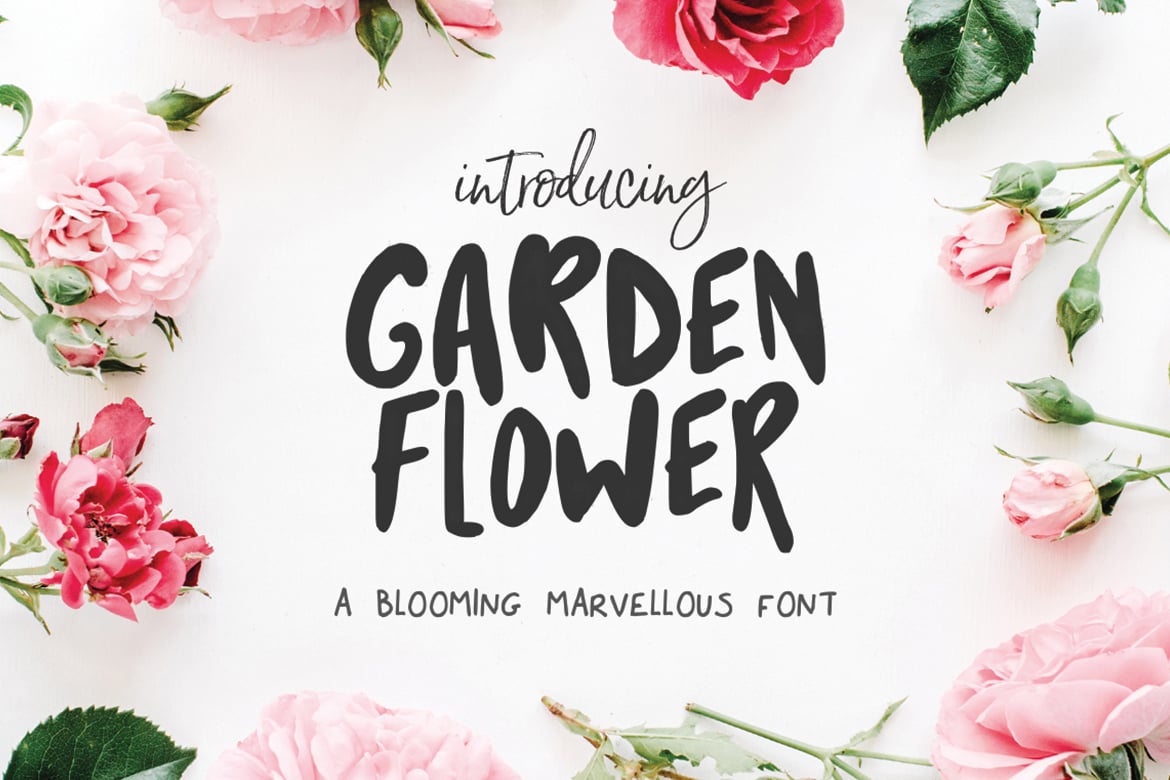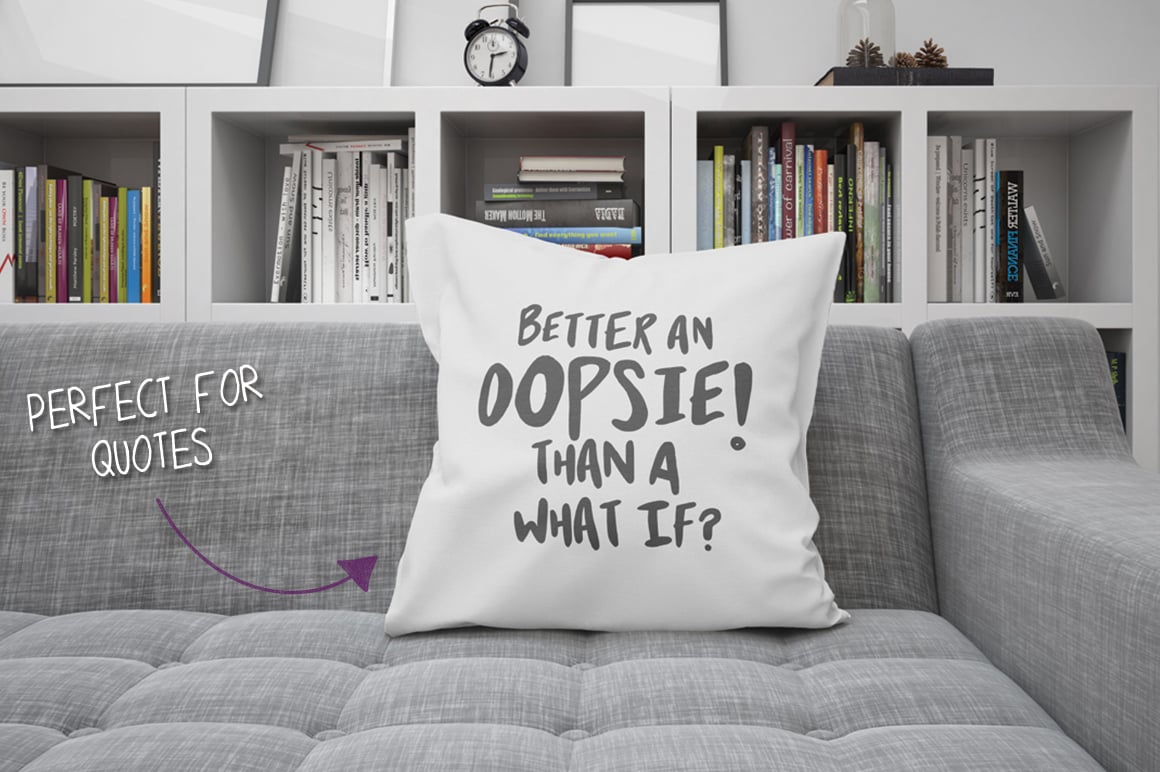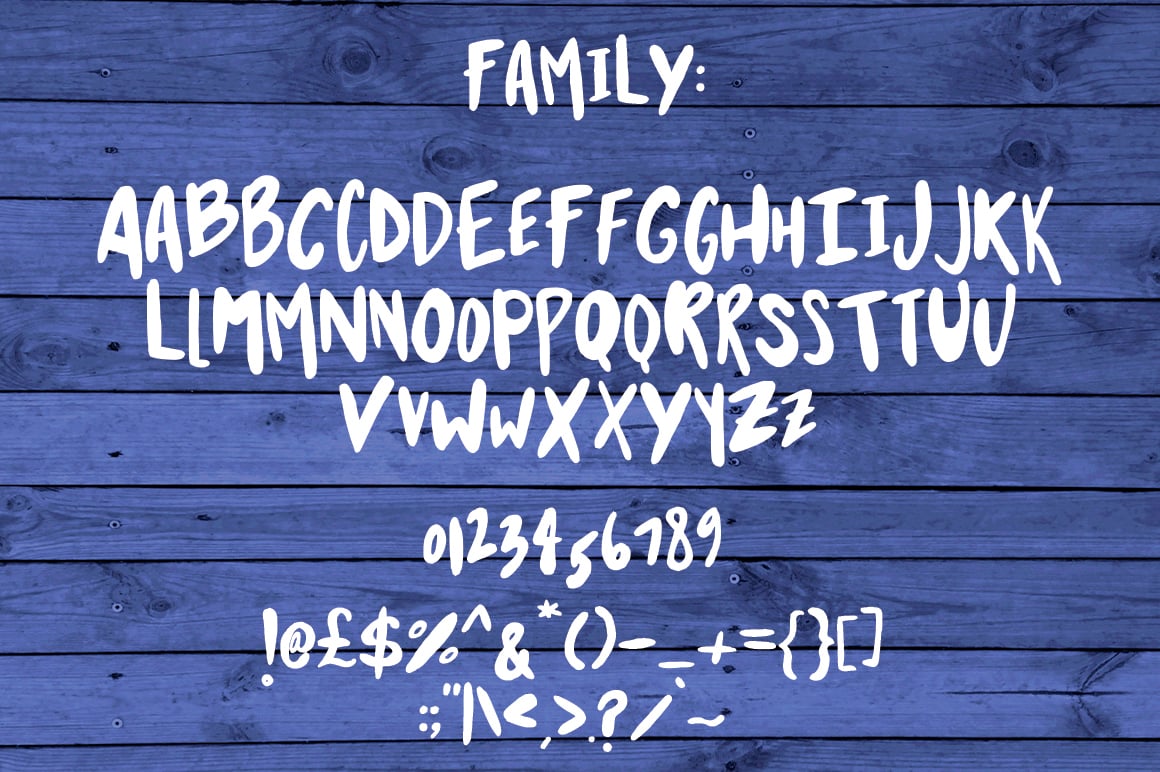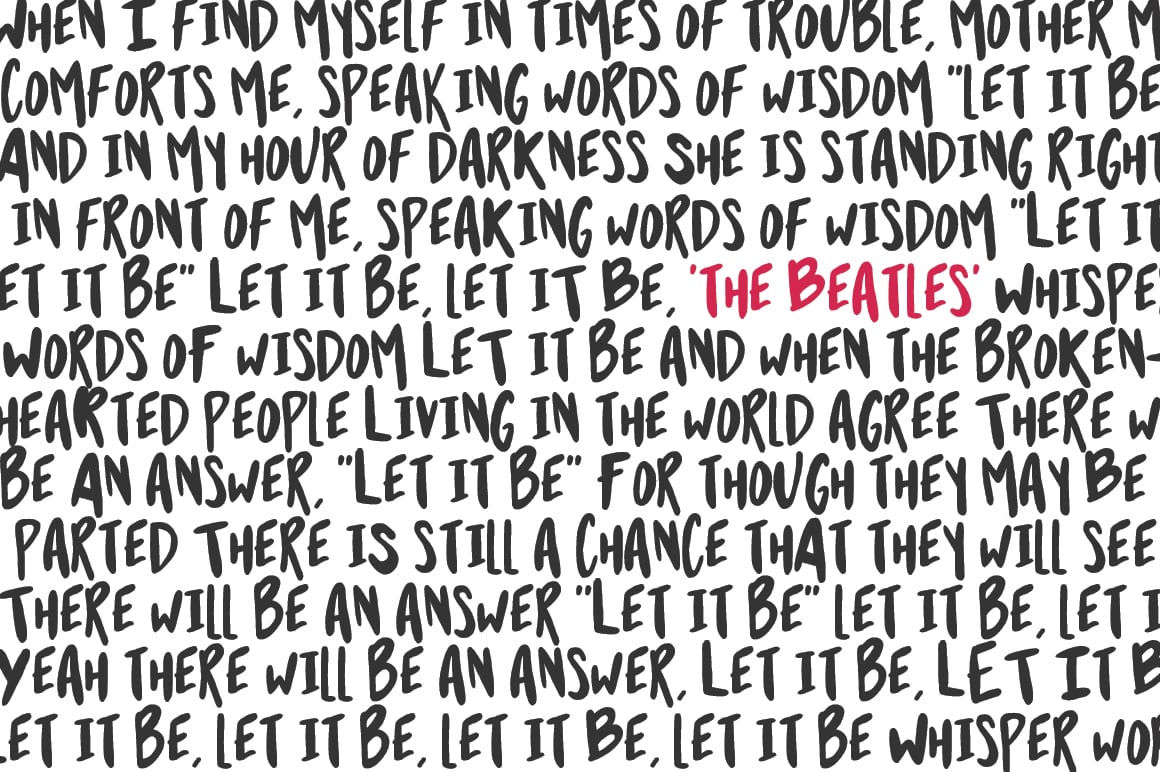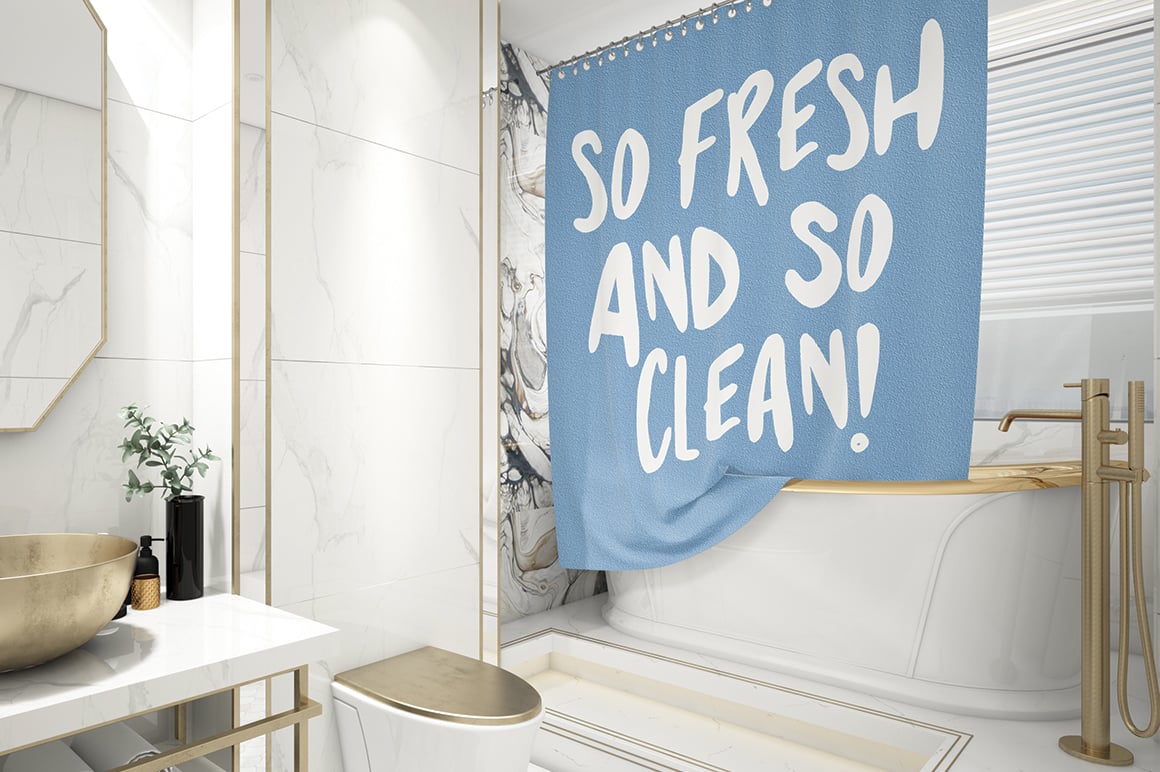
Garden Flower Font
Introducing ‘Garden Flower’ a thick and fabulous new font from Salt & Pepper Designs! Great for bold headers and even works well for large blocks of text! Combine uppercase and lowercase for alternates and enjoy! π